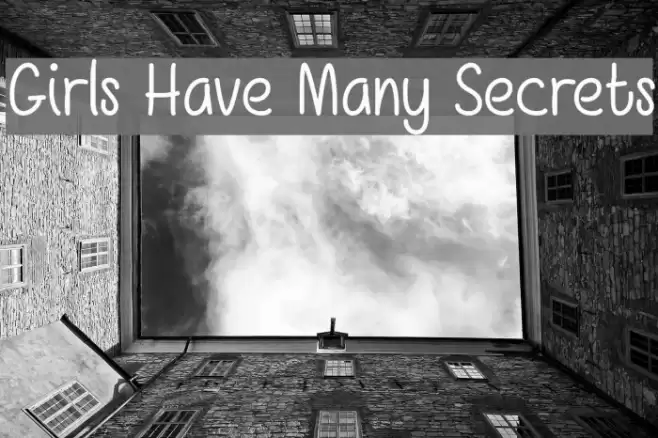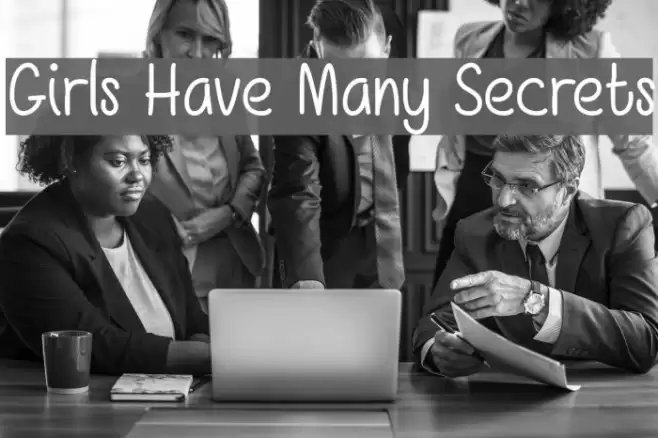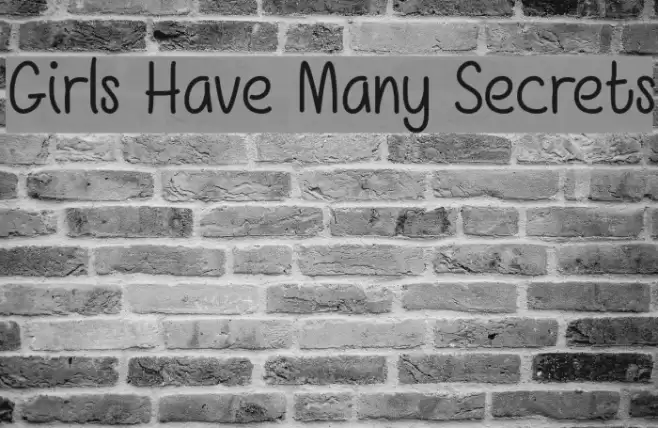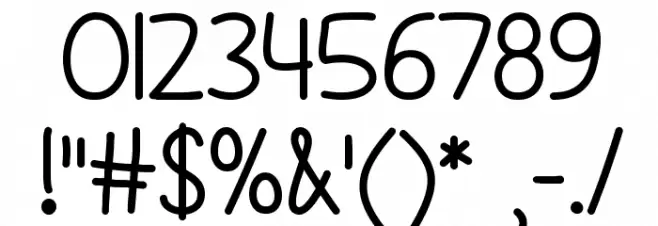
Girls Have Many Secrets Font
Girls Have Many Secrets Description
This playful and whimsical font features a handwritten style with rounded edges and a casual appearance. The characters are slightly uneven, adding to its charm and informal feel. The uppercase letters are tall and narrow, while the lowercase letters have a more rounded and friendly look. Numbers and special characters maintain the same playful aesthetic, making this font versatile for various creative projects. The overall design is approachable and fun, perfect for conveying a sense of friendliness and creativity.
A playful, handwritten font with rounded edges and a casual style from Uncategorized fonts.
- Proposed Projects: Ideal for children's books, greeting cards, playful branding, and informal invitations.
- Overall Style: Playful
- Use Case: Headlines, Logos, Informal Text